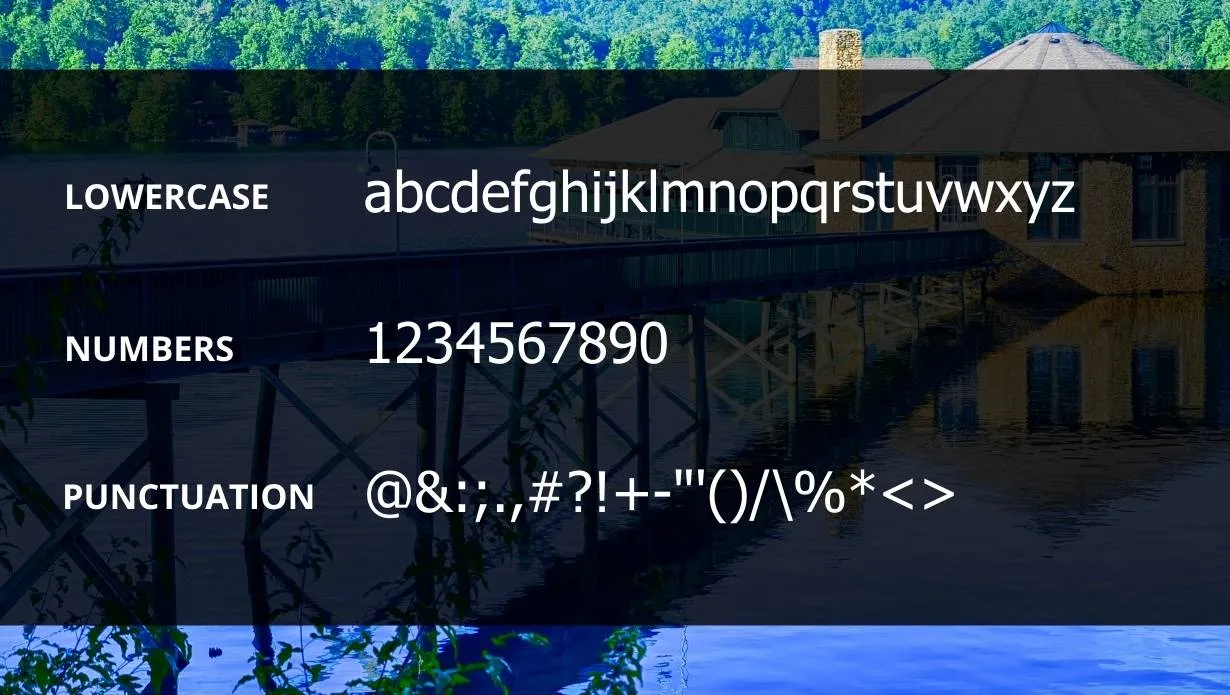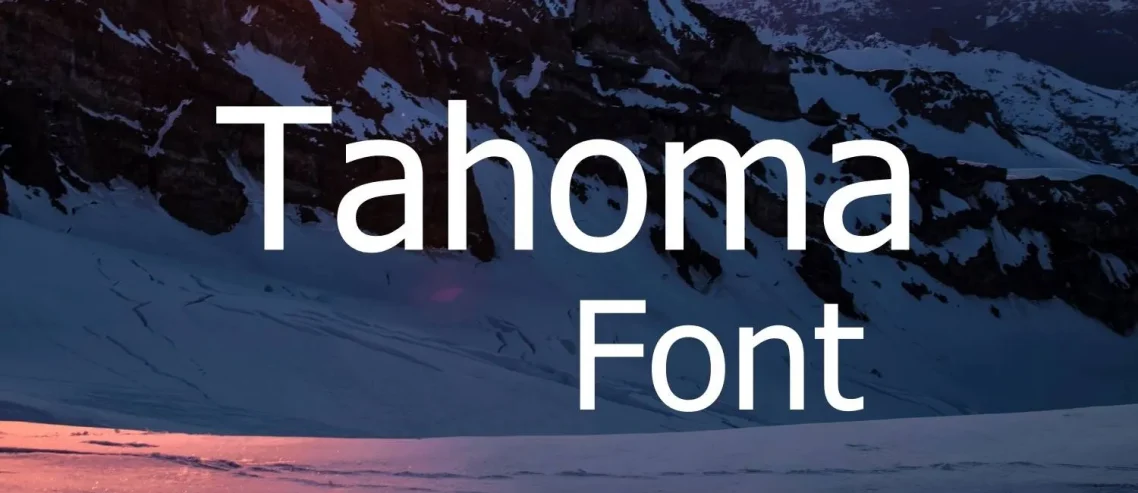
The Tahoma Font is a humanist sans-serif typeface created by Matthew Carter for Microsoft Corporation. It was launched in 1996 and is commonly utilized on Microsoft Windows and Mac OS X operating systems.
This font is considered to be one of the most versatile sans-serif typefaces. This font can be used for both body text and headlines. This is a great alternative to Arial and Helvetica.
- Tahoma Regular
- Tahoma Bold
- Tahoma Std SC
- Tahoma Std Italic
View of Tahoma Font
Tahoma Font Info
| Name | Tahoma Font |
| Designer | Matthew Carter |